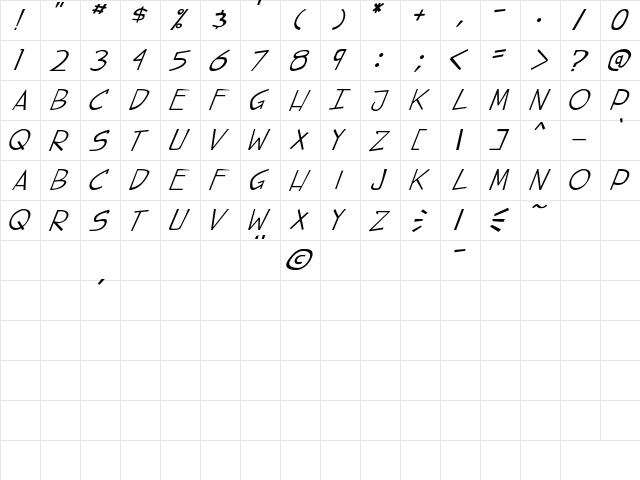
street cred Italic Font Preview
street cred Italic
Design Context for street cred Typeface
street cred is a composed and adaptable typeface that performs quietly and consistently across a wide range of design contexts. The slanted form adds forward momentum and visual energy.
Pro Tip: Use street cred for emphasis, pull quotes, and subheadings where its slanted energy can add rhythm to the layout.